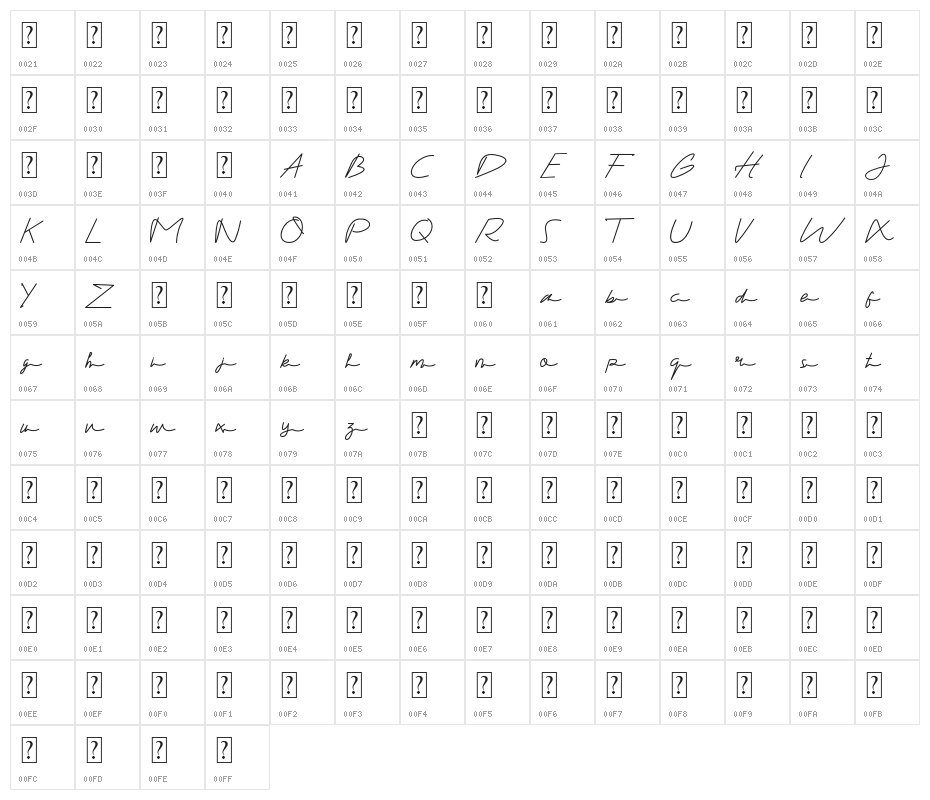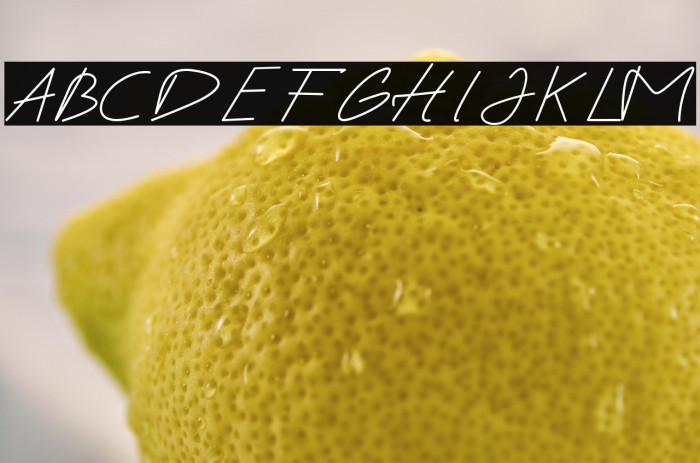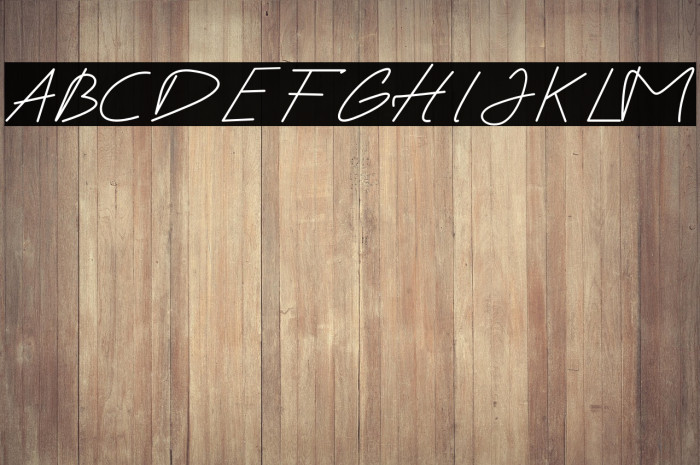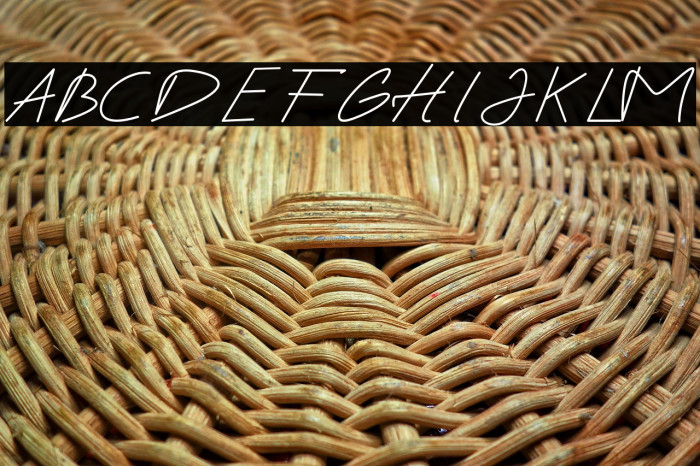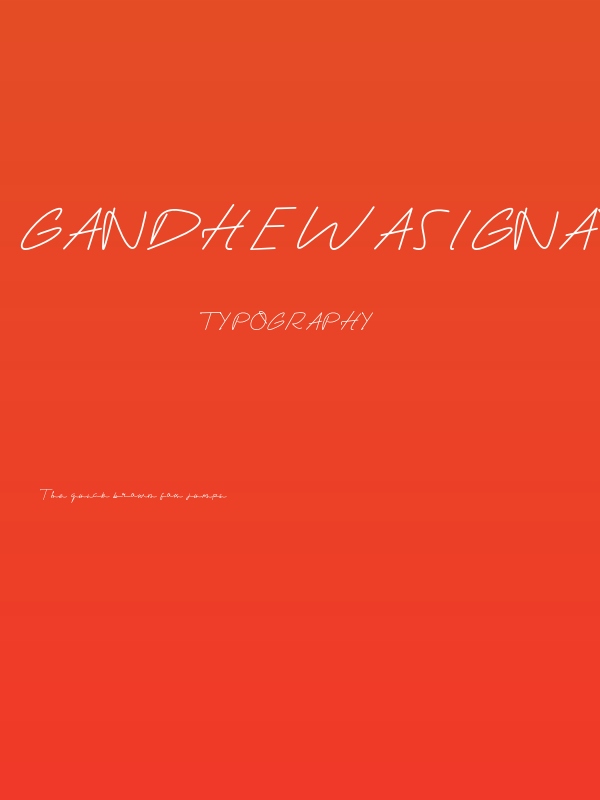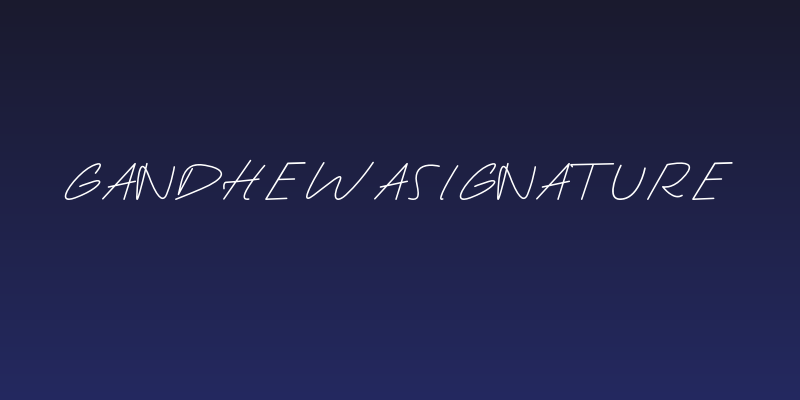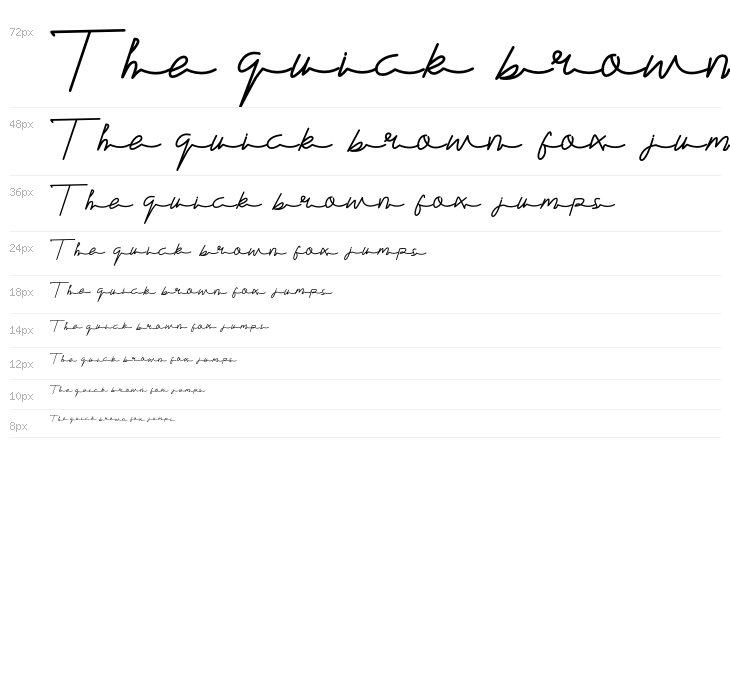
GandhewaSignature Font
GandhewaSignature Description
This font features a fluid, cursive style that mimics natural handwriting. The uppercase letters are elegantly slanted with smooth, continuous strokes, giving them a sophisticated and personal touch. The lowercase letters maintain a consistent flow, with some characters connecting seamlessly to the next, enhancing the script's authenticity. The overall appearance is graceful and stylish, suitable for projects that require a personal or artistic flair. The font's design is clean, with a medium stroke contrast that adds to its legibility while preserving its decorative nature.
| Use Case | Logos, Invitations, Artistic projects |
| Proposed Projects | Ideal for wedding invitations, personal branding, greeting cards, and artistic projects. |